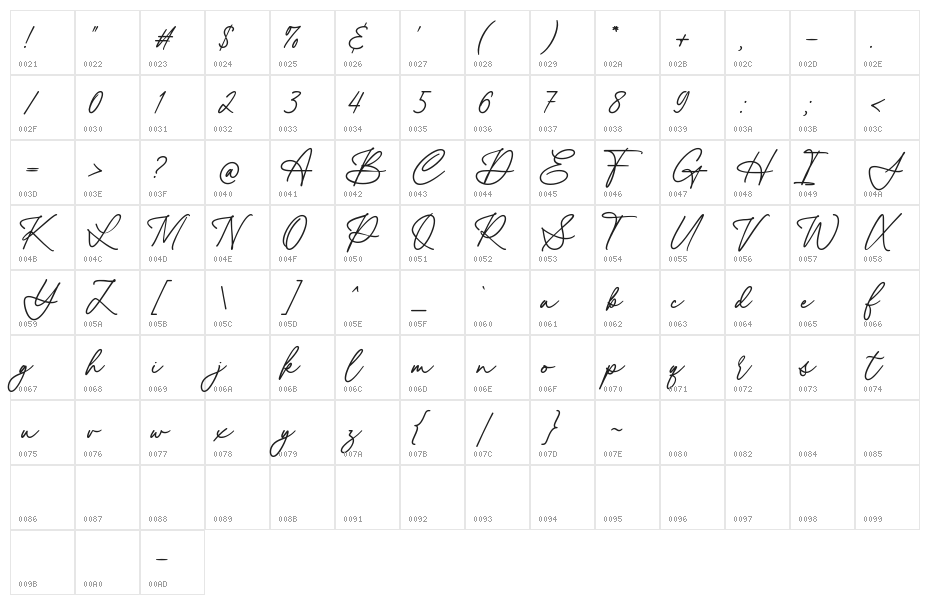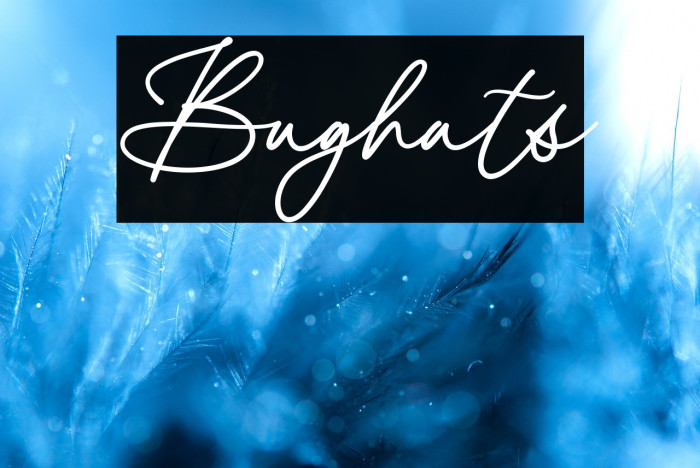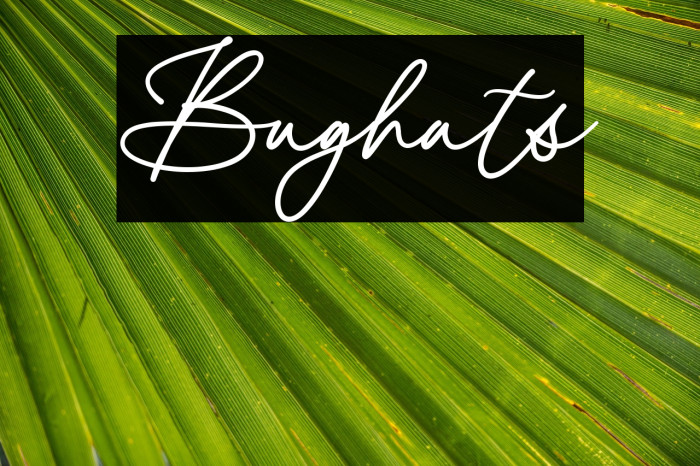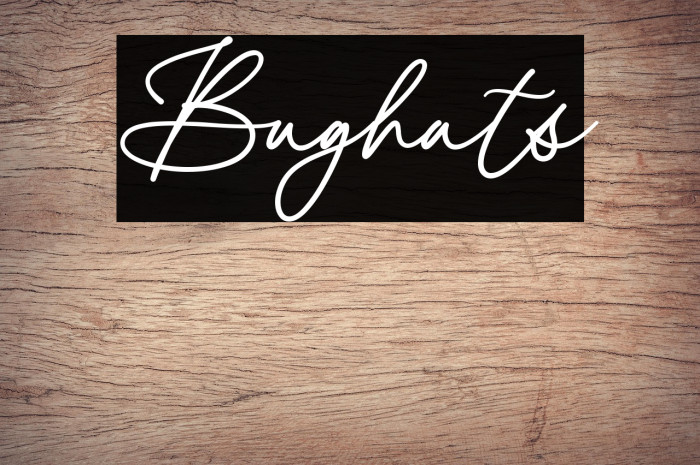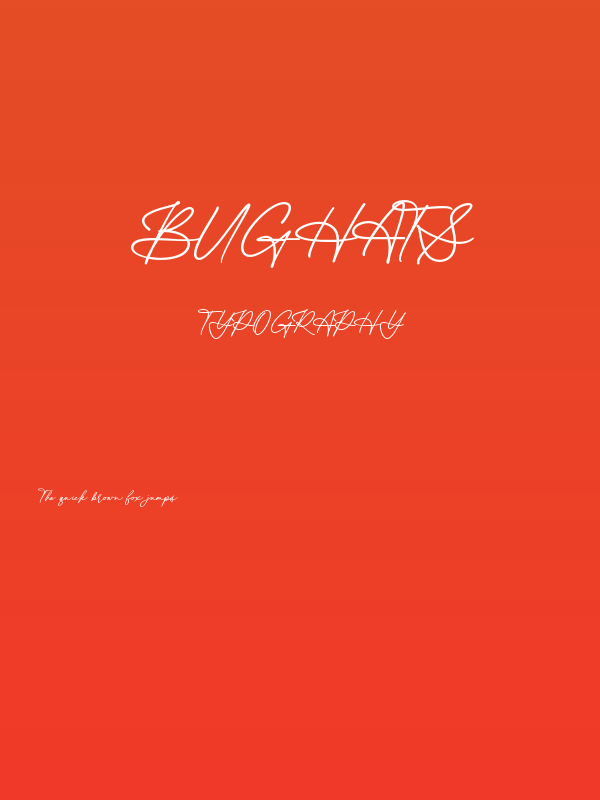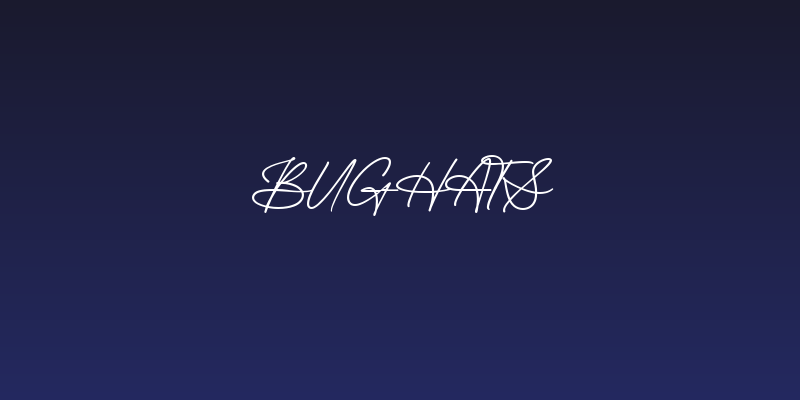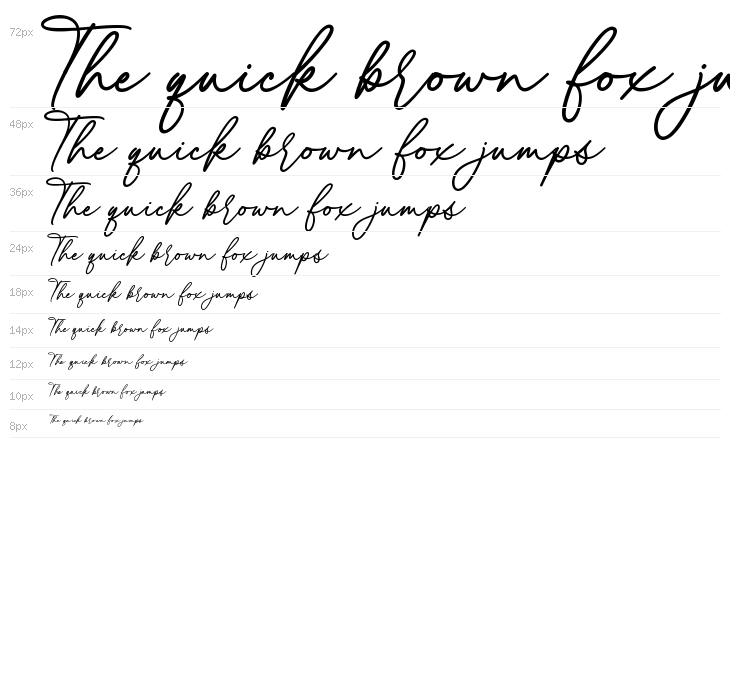
Bughats Font
Bughats Description
A flowing, connected script font with a handwritten, cursive style. The strokes are smooth and fluid, with consistent slant and moderate loops, mimicking natural penmanship. The characters are legible but have a casual, personal touch.
| Overall Style | Handwritten, Decorative |
| Proposed Projects | Wedding invitations, personal branding, greeting cards, quotes, social media graphics. |